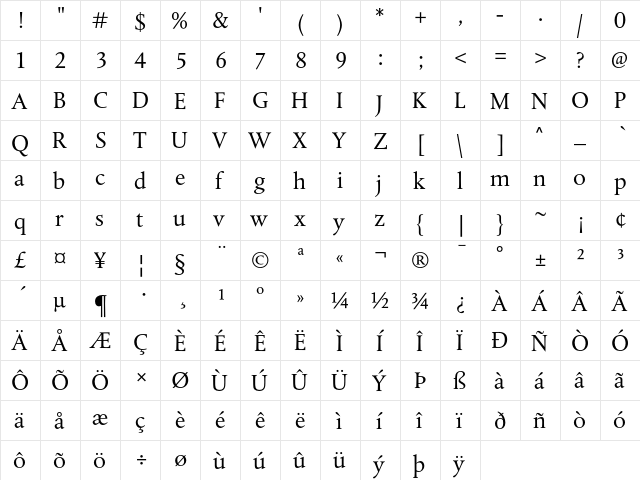
DTLAlbertinaT Regular
Design Context for DTLAlbertinaT Typeface
DTLAlbertinaT is a composed and adaptable typeface that performs quietly and consistently across a wide range of design contexts.